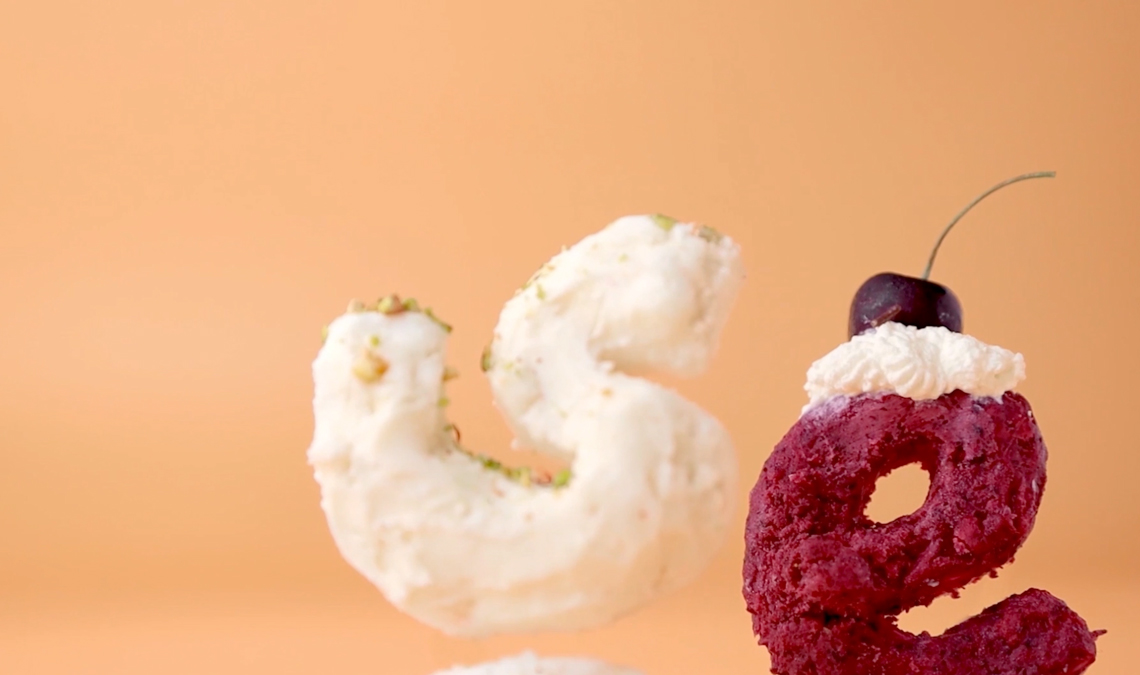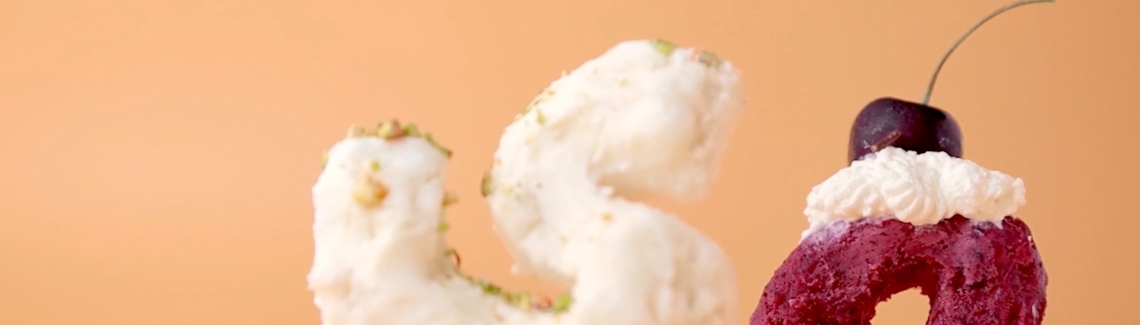
Bree Multiscript Sweet Release Video, by Danielle Duncan (Evans)
To mark the expansion of our multiscript Bree family, our friend Danielle Duncan (Evans) has created the sweetest video you’ll see this year — customary confections all painstakingly made by hand in the script of selected regions.
Sweet Release
Bree has expanded again — we’ve added Arabic, Thai, advanced Pinyin support, and refined our Vietnamese diacritics.
To celebrate all this, we asked the incredibly talented Danielle Duncan (Evans) (Marmalade Bleue) to create a video showing off the opulence that is Bree in the sweetest way. Imbibe in the two brand new scripts, refined Vietnamese and Pinyin support, and all the deliciousness your eyes can handle!